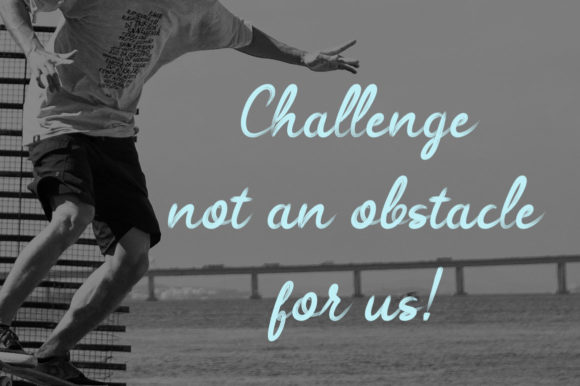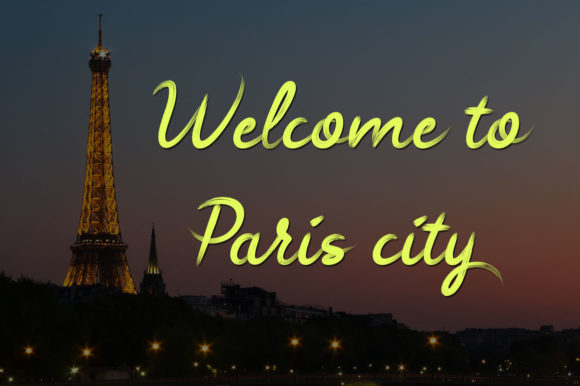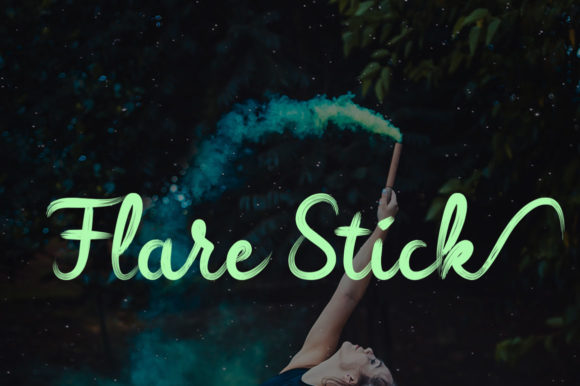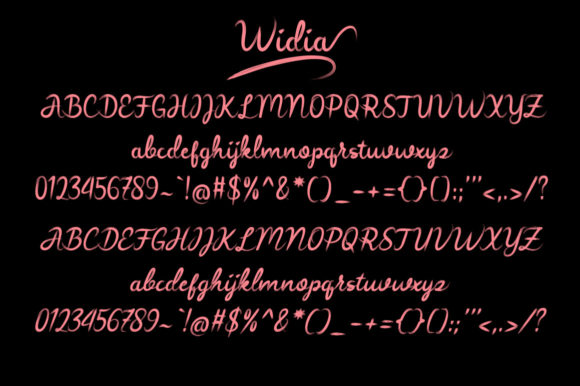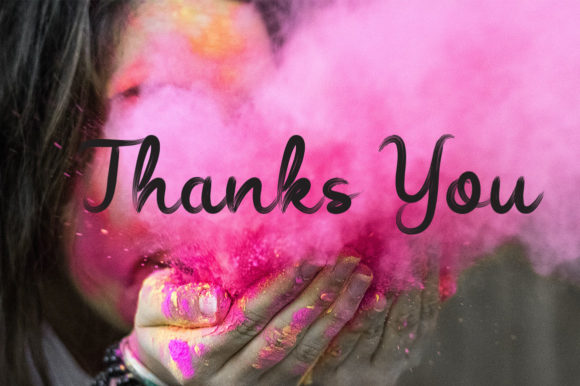
HomeScript FontsWidia Font Script Fonts Widia Font FacebookXPinterestWhatsApp Widia Font Poster 2 Widia Font Poster 3 Widia Font Poster 4 Widia Font Poster 5 Widia Font Poster 6 About Widia Font Widia is a beautiful and bold brushed font with a contemporary, yet classic feel. Get inspired by its unique charm. DOWNLOAD ON CREATIVE FABRICAThis font is sold and delivered by Creative Fabrica. Font Canyon may earn a commission if you buy through this link. People also explored Dreamy Siberica Font Planner Font The Glisten Font Brown Bag Font Cognac Hola Bisou Family Font Balentia Font Flowela Font Sunday Morning Font 269 0 TagsWidia Font Previous articleDumbo FontNext articleExcellent Signature Font LEAVE A REPLY Cancel reply Comment: Please enter your comment! Name:* Please enter your name here Email:* You have entered an incorrect email address! Please enter your email address here Website: Save my name, email, and website in this browser for the next time I comment. Personal Use Free BD Alm Personal Use Free Read more about this font Susanna Personal Use Free Read more about this font Manbow Personal Use Free Read more about this font Black Jalal Personal Use Free Read more about this font BLOG Best Fonts for YouTube Videos: Make Your Thumbnails Stand Out Best Fonts for YouTube Videos: Make Your Thumbnails Stand Out Choosing the right font can make a massive difference in how your YouTube videos perform.... How to Cut Any Font on Cricut: Convert a Font to SVG (Free) Free Fonts Risk: Why Free Fonts Can Be Dangerous for Designers Free vs Paid Fonts: Why Investing in Premium Fonts Is Worth It